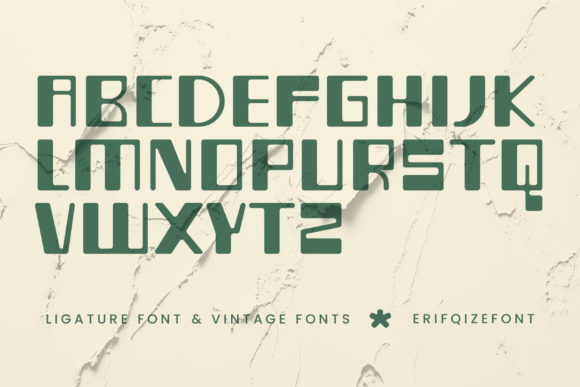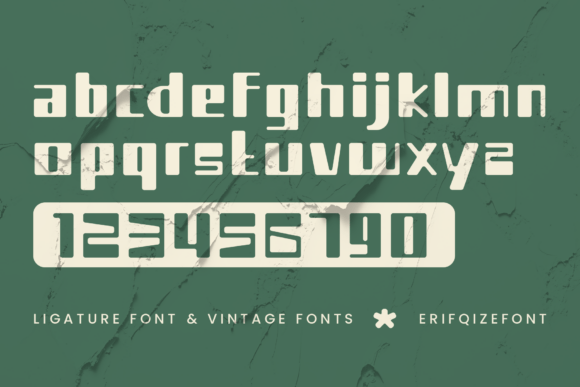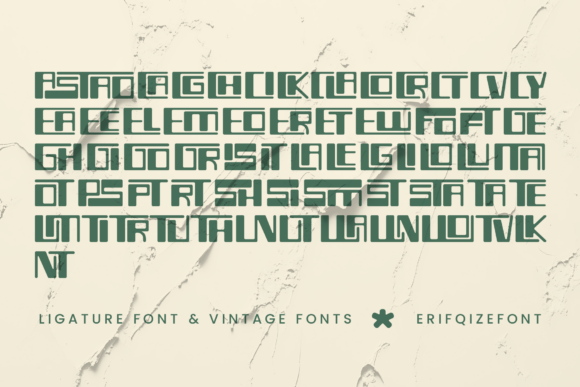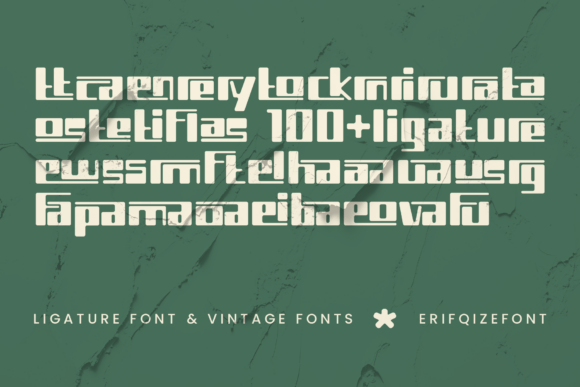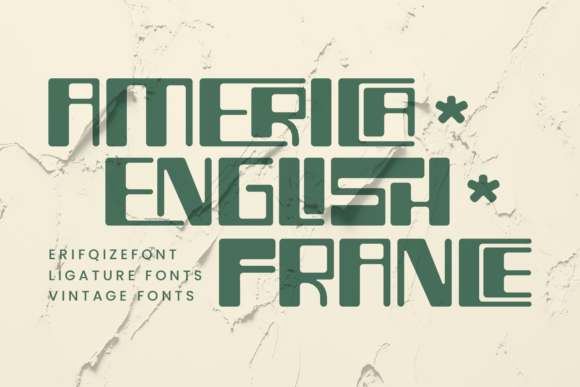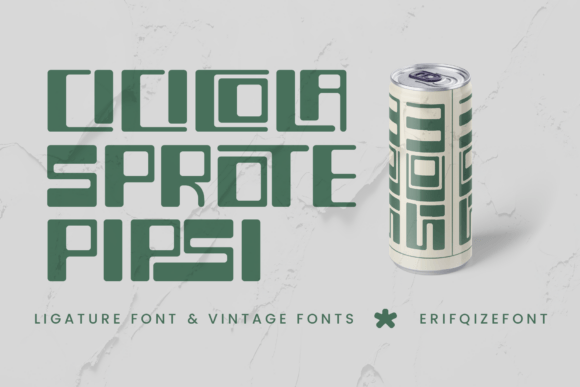
Introducing Classica Crastao: A Timeless Vintage-Themed Sans Serif Font
In the world of typography, few fonts manage to strike a balance between classic charm and modern functionality. Classica Crastao, a bold and versatile vintage-themed sans serif font, is one such exceptional find. Its unique blend of rounded corners and distinctive letterforms gives it a timeless appeal that is sure to captivate designers and crafters alike.
A Font that Exudes Elegance and Sophistication
Classica Crastao boasts an impressive array of features that make it an ideal choice for a wide range of design projects. With over 100 ligatures for both uppercase and lowercase letters, this font ensures seamless and elegant typography. Whether you’re working on branding, headlines, logos, or any design that seeks a touch of retro sophistication, Classica Crastao is the perfect companion.
Multilingual Support for Global Design Needs
In today’s globalized design landscape, multilingual support is a must-have feature for any font. Classica Crastao rises to the challenge, offering extensive language support that caters to diverse design needs. This feature makes it an excellent choice for designers working on international projects or those who need to create content for a global audience.
Design Applications for Classica Crastao
The versatility of Classica Crastao makes it suitable for a variety of design applications. Here are a few areas where this font truly shines:
- Branding: Create a lasting impression with Classica Crastao’s unique and memorable typography. Its vintage charm can add a touch of nostalgia and warmth to your brand identity.
- Headlines: Grab attention with bold and elegant headlines. Classica Crastao’s distinctive letterforms make it perfect for titles, headings, and any text that needs to stand out.
- Logos: Design logos that are both timeless and modern. The font’s rounded corners and classic appeal can help create a logo that is both sophisticated and approachable.
- Designs: Add a touch of retro sophistication to your designs, whether they’re for print, digital platforms, or merchandise. Classica Crastao’s versatility ensures it works well across various mediums.
Why Choose Classica Crastao?
With so many fonts available, why should Classica Crastao be your top choice? Here are a few compelling reasons:
- Unique Appeal: Its blend of vintage charm and modern functionality sets it apart from more generic fonts.
- Elegant Typography: With over 100 ligatures, Classica Crastao ensures your text flows smoothly and elegantly.
- Multilingual Support: Cater to a global audience with a font that supports multiple languages.
- Versatility: Suitable for a wide range of design projects, from branding and headlines to logos and more.
Classica Crastao is more than just a font; it’s a design statement. Its unique blend of classic charm and modern functionality makes it an invaluable asset for designers and crafters looking to add a touch of elegance and sophistication to their work. With its extensive features, including over 100 ligatures and multilingual support, Classica Crastao is poised to become your go-to font for projects that demand a timeless, vintage aesthetic. Explore the possibilities with Classica Crastao and elevate your designs to new heights of elegance and sophistication.